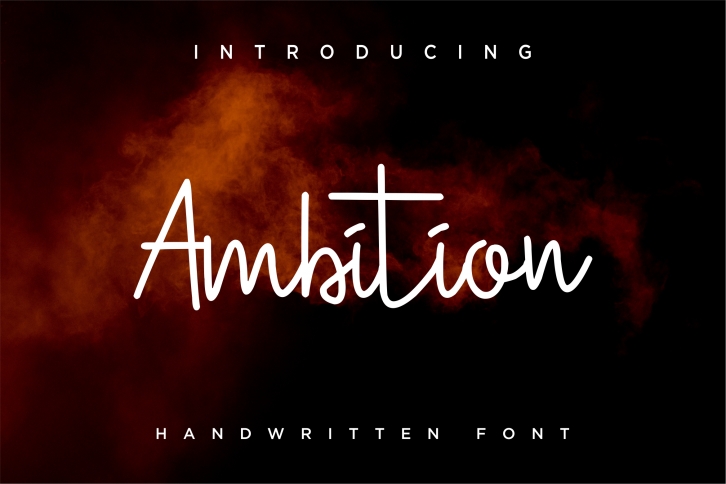
Ambition is a gorgeous font that was realeased on May 7, 2019. The font can be used in many style contexts and design environments. Perfect for invitations, magazines, websites, logos, and more! It was designed by MENK and the file size is 18.31 MB. Thanks for checking out this font!